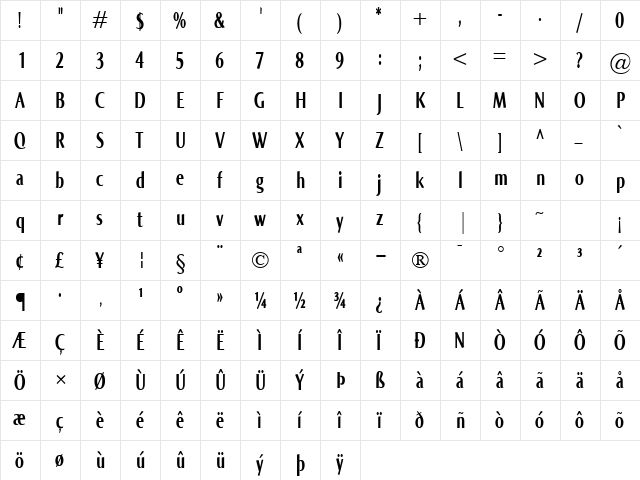
Norma Compr Bold
Design Context for Norma Compr Typeface
Norma Compr is a composed and adaptable typeface that performs quietly and consistently across a wide range of design contexts. The heavy weight commands attention and anchors typographic hierarchies.